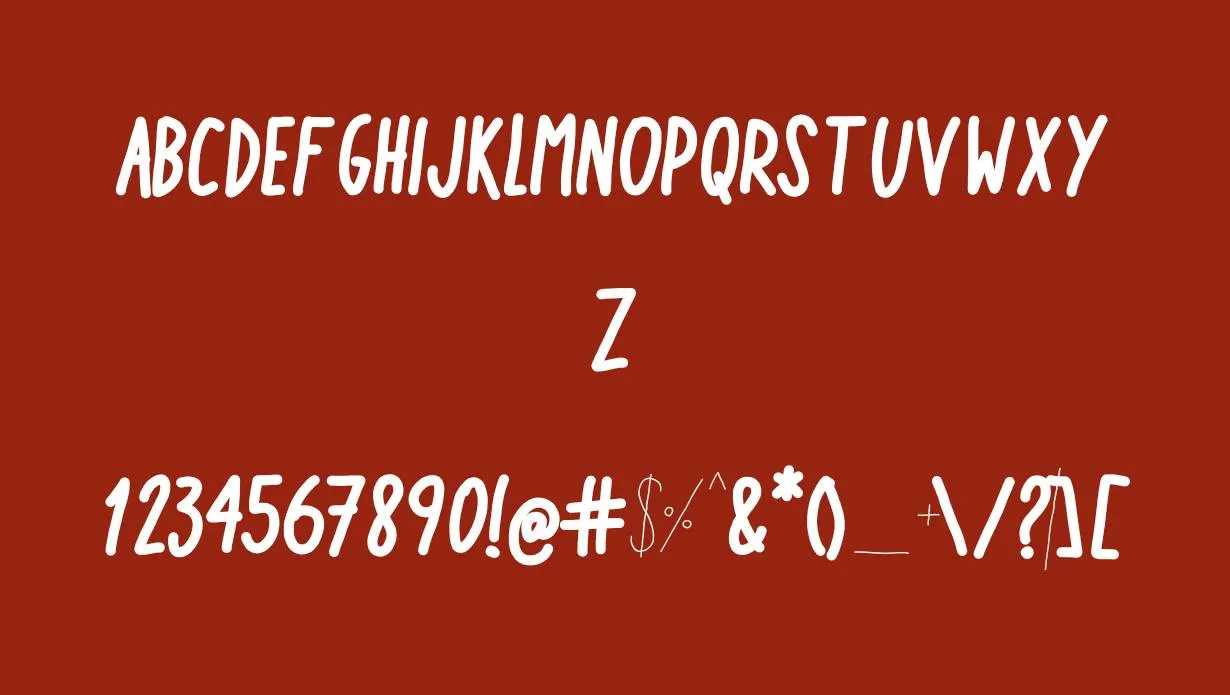
Kintsukuroi Handmade Font is a decorative and artistic typeface known for its unique and handcrafted design.
It’s frequently used in creative and artistic projects that aim to convey a sense of craftsmanship and individuality. This font adds a handcrafted and artisanal touch to your design work.
| Name | Kintsukuroi Handmade Font |
| Designer | Ezeqviel Ergo |